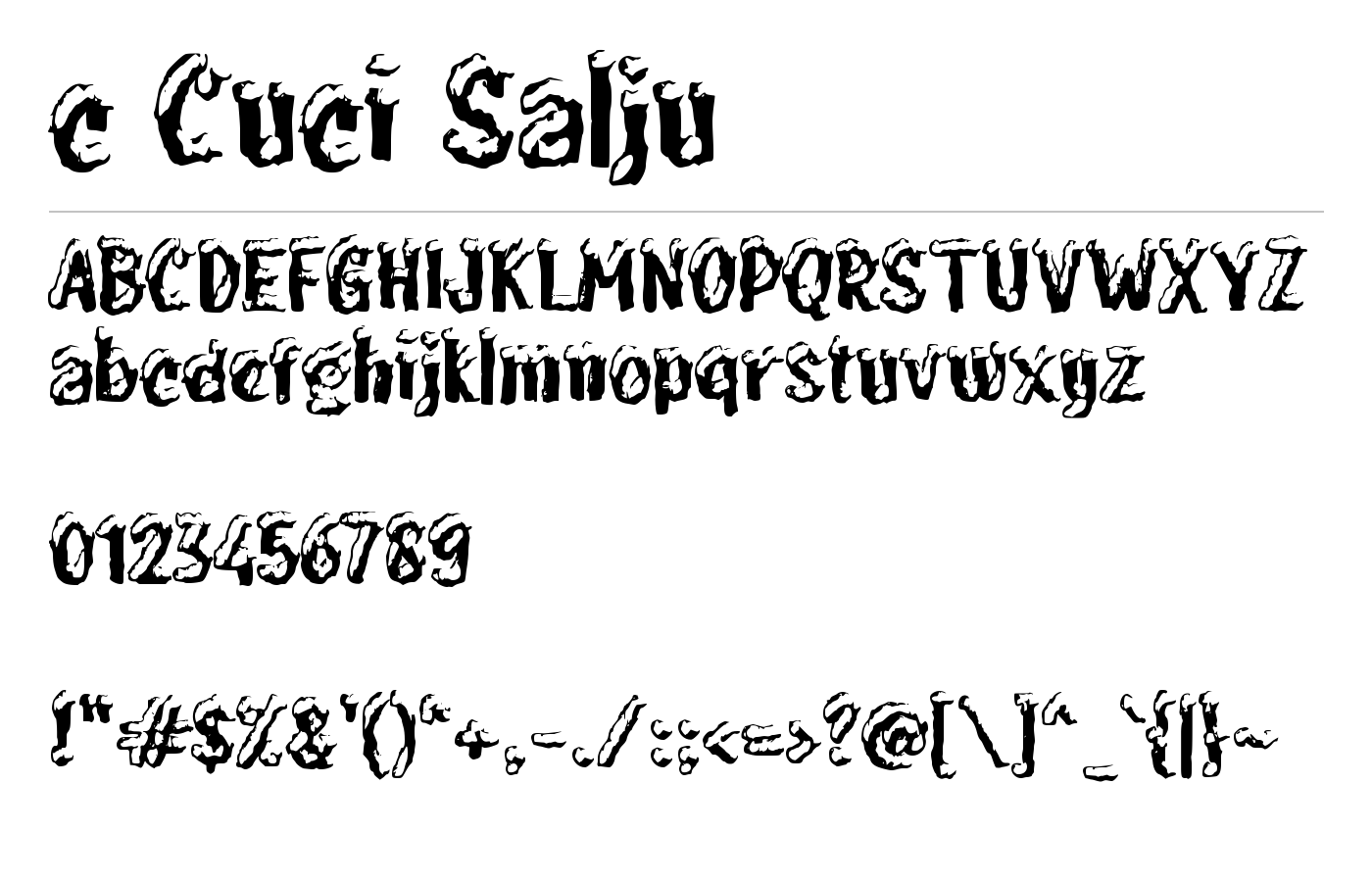
Cuci Salju is a bold, decorative serif font with a rugged, textured appearance that gives it a distressed, hand-crafted feel. Its uneven edges and quirky letterforms create a playful yet rough aesthetic, making it ideal for eye-catching headlines, posters, or creative branding that aims to stand out with a unique, artistic vibe. This font works best in contexts where a strong, expressive personality is needed rather than subtle readability.
c Cuci Salju Font
About c Cuci Salju Font
| Font family | c Cuci Salju Font |
| Designer | Wahyu Eka Prasaetya |